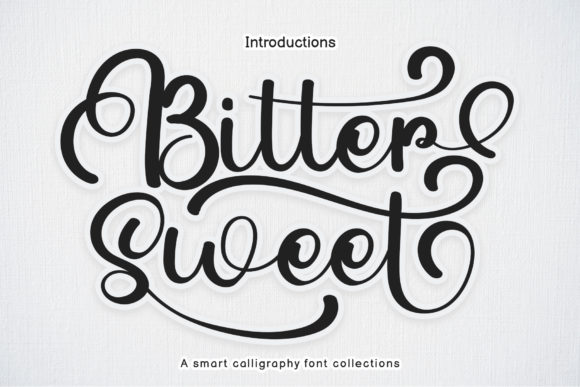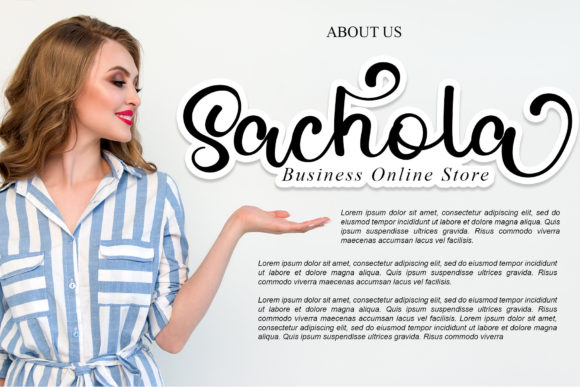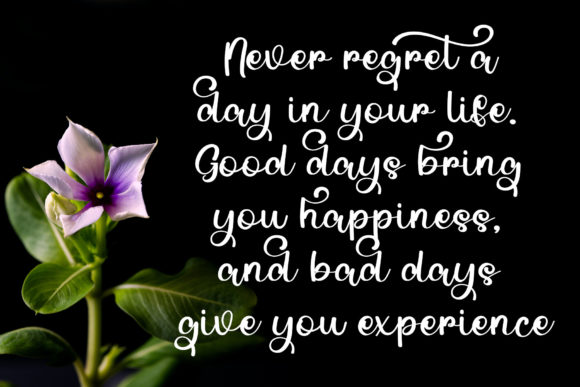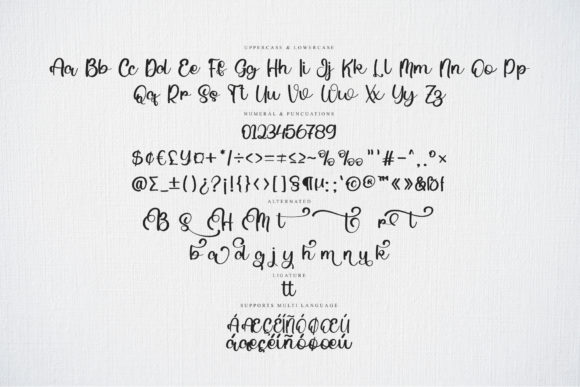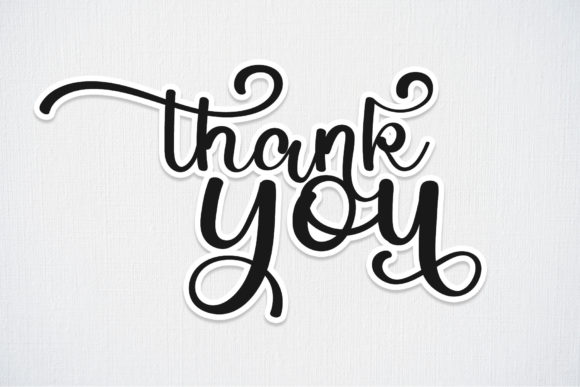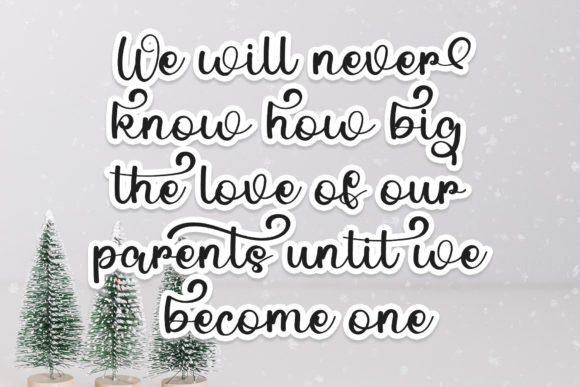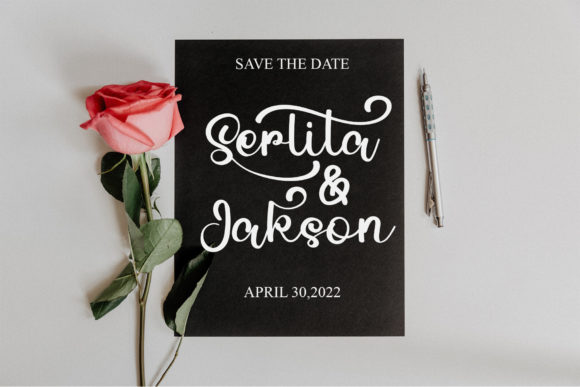
Bitter Sweet Font
About Bitter Sweet Font
Bitter Sweet is an exquisite and refined script font that radiates sophistication and grace. Meticulously designed, this font is perfect for individuals seeking a stunning and rejuvenating aesthetic for their creative projects.
With its delicate strokes and charming curves, Bitter Sweet adds a touch of elegance and class to any design. Whether used in invitations, branding, or other creative endeavors, this font elevates the overall visual appeal with its loveliness.
One remarkable feature of Bitter Sweet is its PUA encoding, providing effortless access to a plethora of glyphs and swashes. This encoding ensures seamless utilization of the font’s diverse elements, allowing designers to easily incorporate unique and artistic touches into their work.
Crafted with attention to detail, Bitter Sweet offers a refreshing and beautiful look that captures attention and leaves a lasting impression. Its versatility makes it suitable for a wide range of design applications, enabling users to infuse a sense of sophistication into their projects.
In summary, Bitter Sweet stands as a testament to refined design, offering a harmonious blend of beauty and functionality. This font is a valuable asset for those who appreciate the finer things in design and seek to enhance their creations with a touch of timeless elegance.